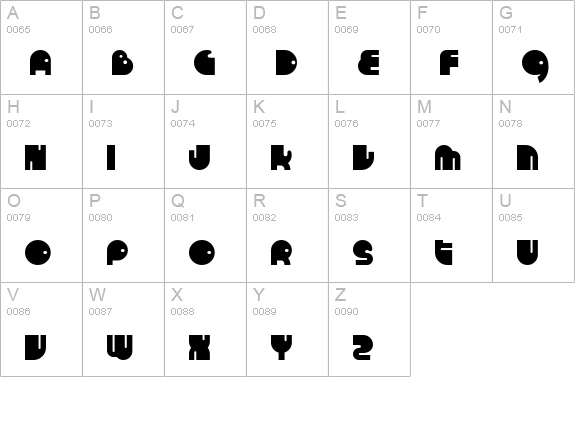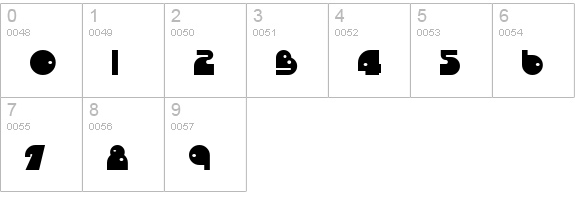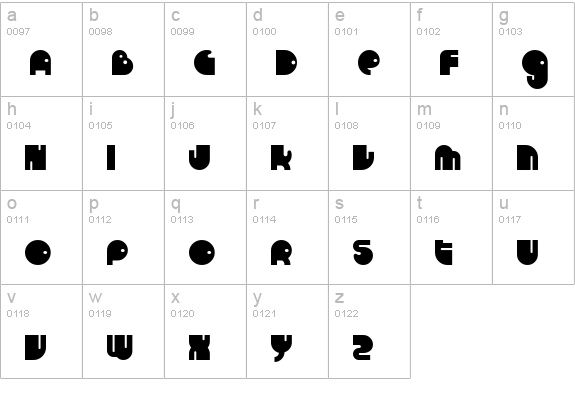
RunTron 1983 Font Details
Introducing RunTron 1983, a sleek and modern font that transports you straight back to the vibrant and dynamic era of the 1980s. This font exudes a sense of energy and excitement, perfect for capturing the essence of retro designs and nostalgic vibes. With its bold lines and futuristic aesthetic, RunTron 1983 is sure to make your projects stand out and grab attention. The best part? RunTron 1983 is available for **free** download at FontsMarket.com! This means you can easily incorporate this striking font into your creative endeavors without breaking the bank. Whether you're working on a poster, logo, website, or any other project that needs a touch of retro flair, RunTron 1983 is the perfect choice. So go ahead, unleash your creativity and experience the magic of RunTron 1983 today!